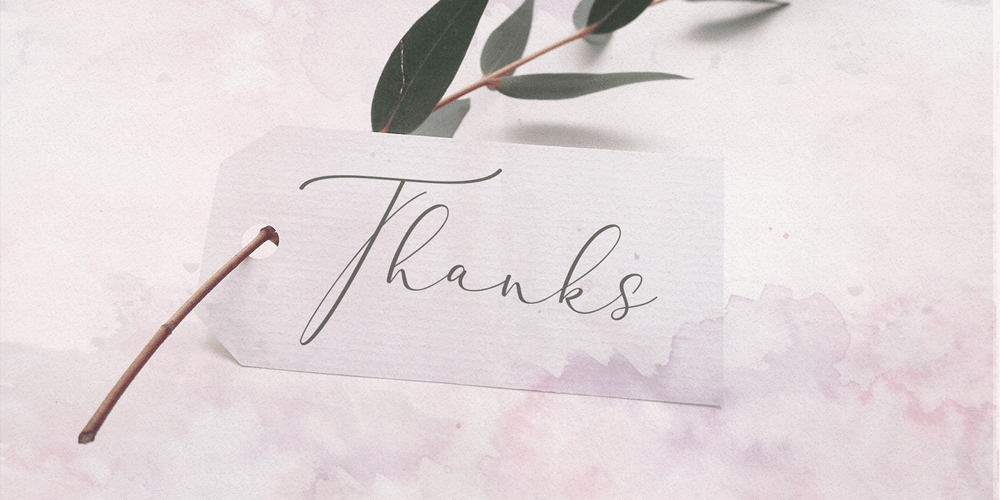
Rachela
Rachela font
Rachela Font Family was designed by Muhammad Rizal and published by MrLetters. Rachela contains 2 styles and family package options. Introducing:Rachela Lovely Calligraphy! A new and beautiful font, created to meet your needs in creating a beautiful and elegant design, this font is special for you. Rachela Lovely Calligraphy Font is perfect for branding, wedding invitations, magazines, mugs, business cards, quotes, posters, and more you can use on your big project would be very beautiful. This font has been equipped with OpenType features and has many glyphs. By having many of these glyphs will be able to choose the letters according to your liking, lots of variations and options for each letter, so you can customize your design choices and also have other languages ​supported. This font is perfect for use with programs that support OpenType features like Adobe Photoshop Cs / Adobe Photoshop CC, Adobe Illustrator CS / Adobe Illustrator CC, Adobe Indesign and Corel Draw and many more programs that support OpenType. I’ve also included a special alternative so you can use any program. This font can be used by everyone! If you have any questions, please feel free to contact me by email at hello.mrletters@gmail.com. Thank you and congratulations designing 🙂